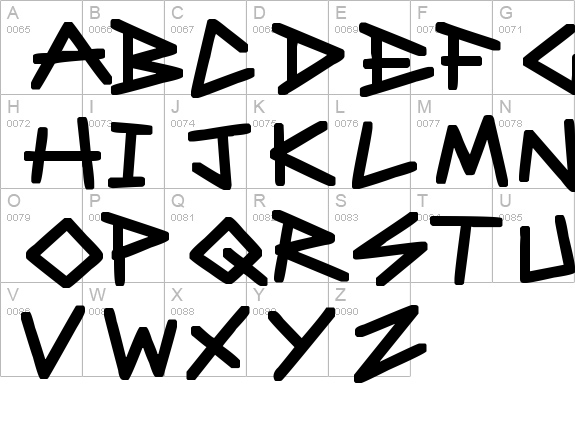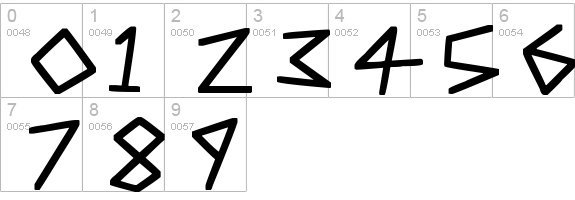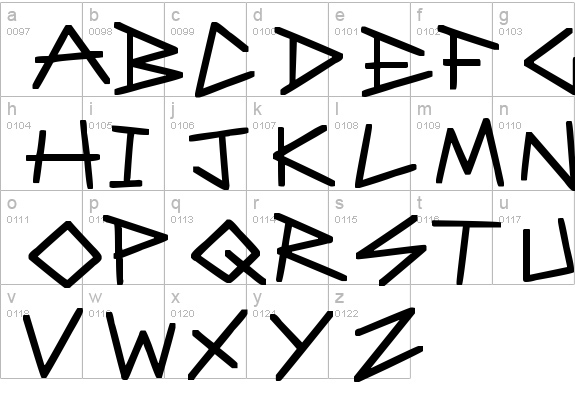
Angular Anarchy is a free for personal use font in the Script category, designed by Darrell Flood. It has been downloaded 98 times and is available for Windows, Mac and Linux.
Angular Anarchy font is a striking display font that exudes a rebellious and edgy vibe with its sharp, angular shapes and bold presence. This font is perfect for making a bold statement in your designs, whether it's for posters, branding, or social media graphics. The unique design of Angular Anarchy font sets it apart from the crowd and adds a touch of modernity and attitude to any project.